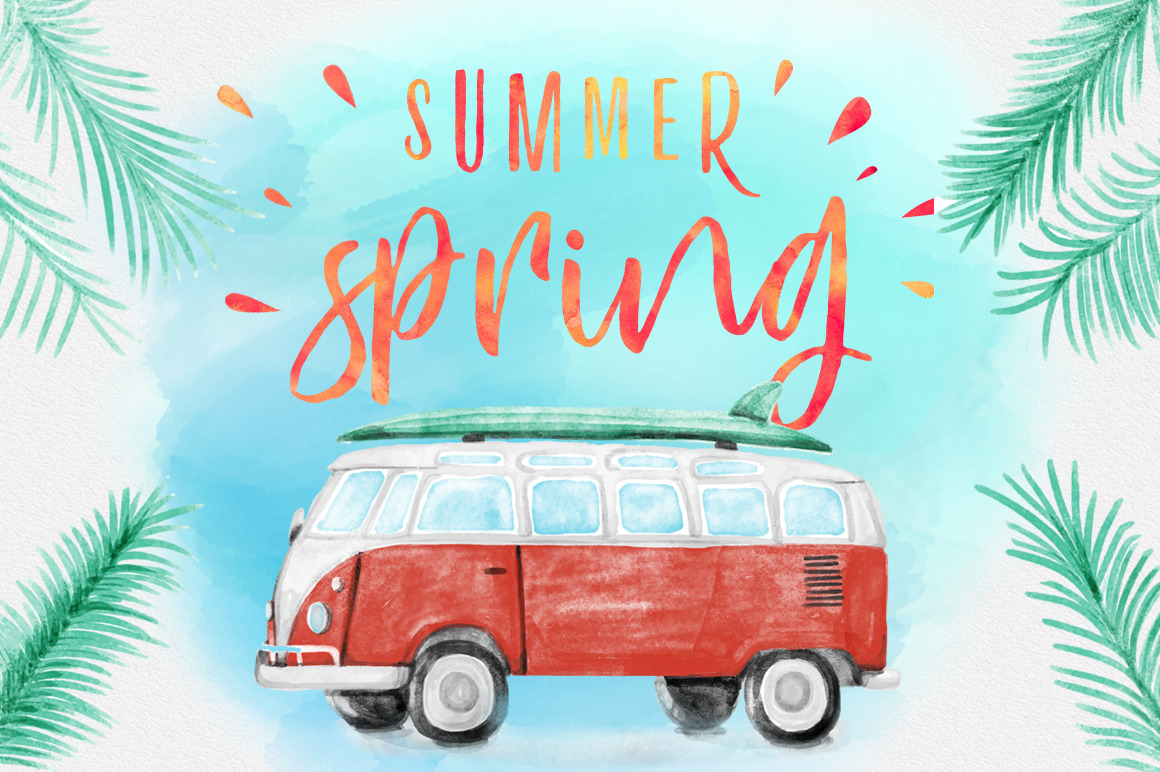
Vayentha Script & Sans (+Webfont)
Let us to introduce our new font Vayentha two hand lettered typeface both of which complement each other. Very personality and very special result on every character. Three kinds of lowercase script is very beautiful was completely with two uppercase sans.
Font Feature
- Lot of language was covered, See the list Afrikaans, Albanian, Asu, Basque, Bemba, Bena, Bosnian, Chiga, Congo Swahili, Cornish, Croatian, Czech, English, Estonian, Filipino, Finnish, Galician, German, Gusii, Hungarian, Indonesian, Irish, Italian, Kabuverdianu, Kalenjin, Kinyarwanda, Latvian, Lithuanian, Luo, Luyia, Machame, Makhuwa-Meetto, Makonde, Malagasy, Malay, Manx, Morisyen, North Ndebele, Nyankole, Oromo, Polish, Portuguese, Romansh, Rombo, Rundi, Rwa, Samburu, Sango, Sangu, Sena, Shambala, Shona, Slovak, Slovenian, Soga, Somali, Spanish, Swahili, Swedish, Swiss German, Taita, Teso, Turkmen, Vunjo, Zulu